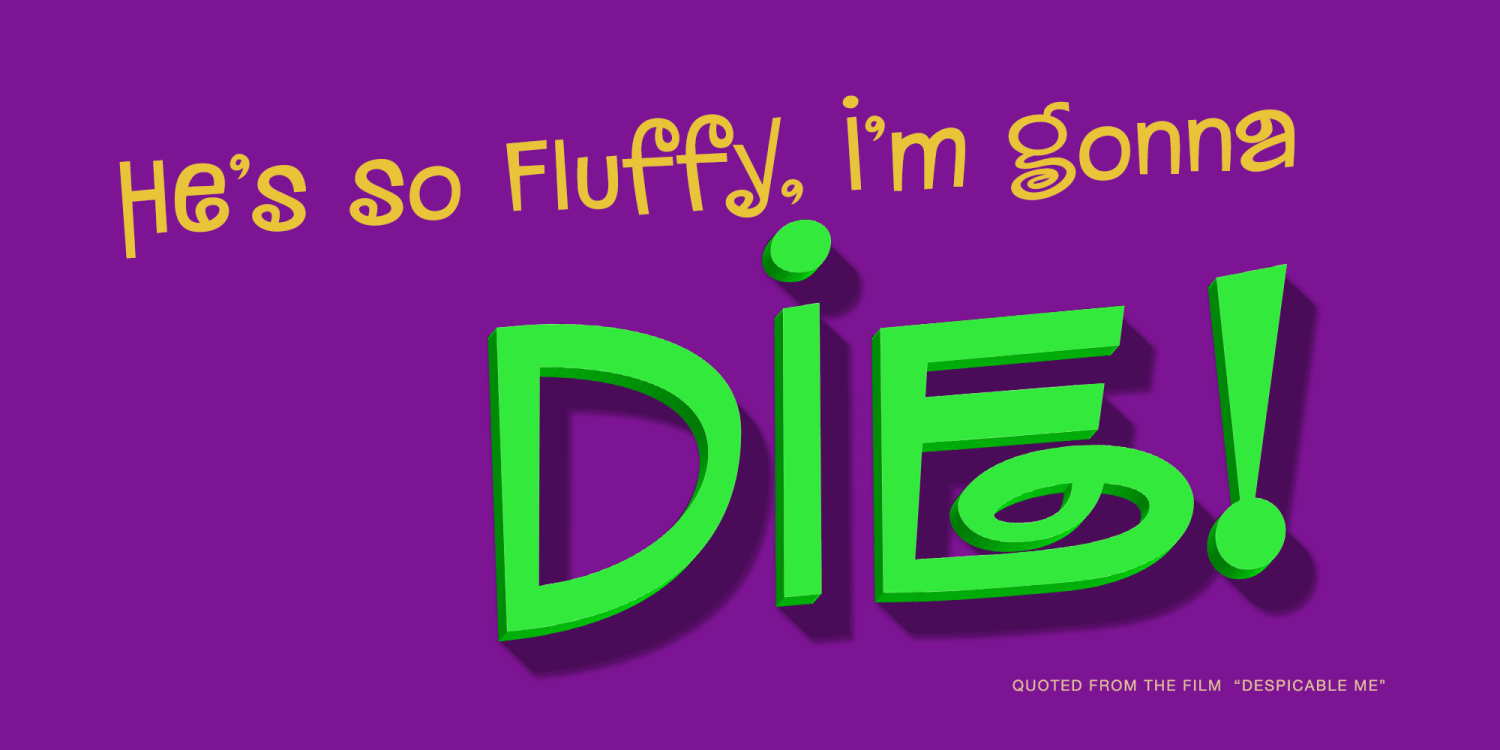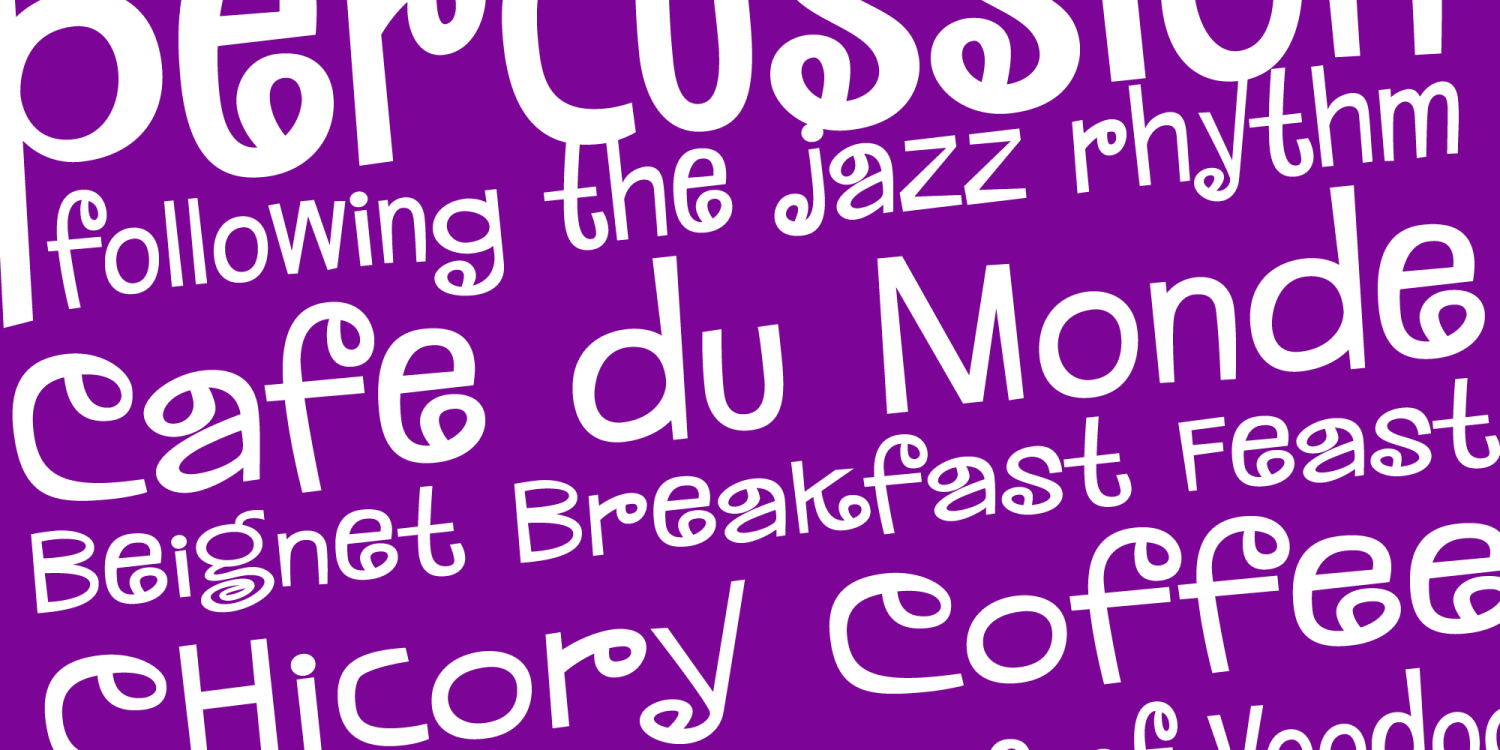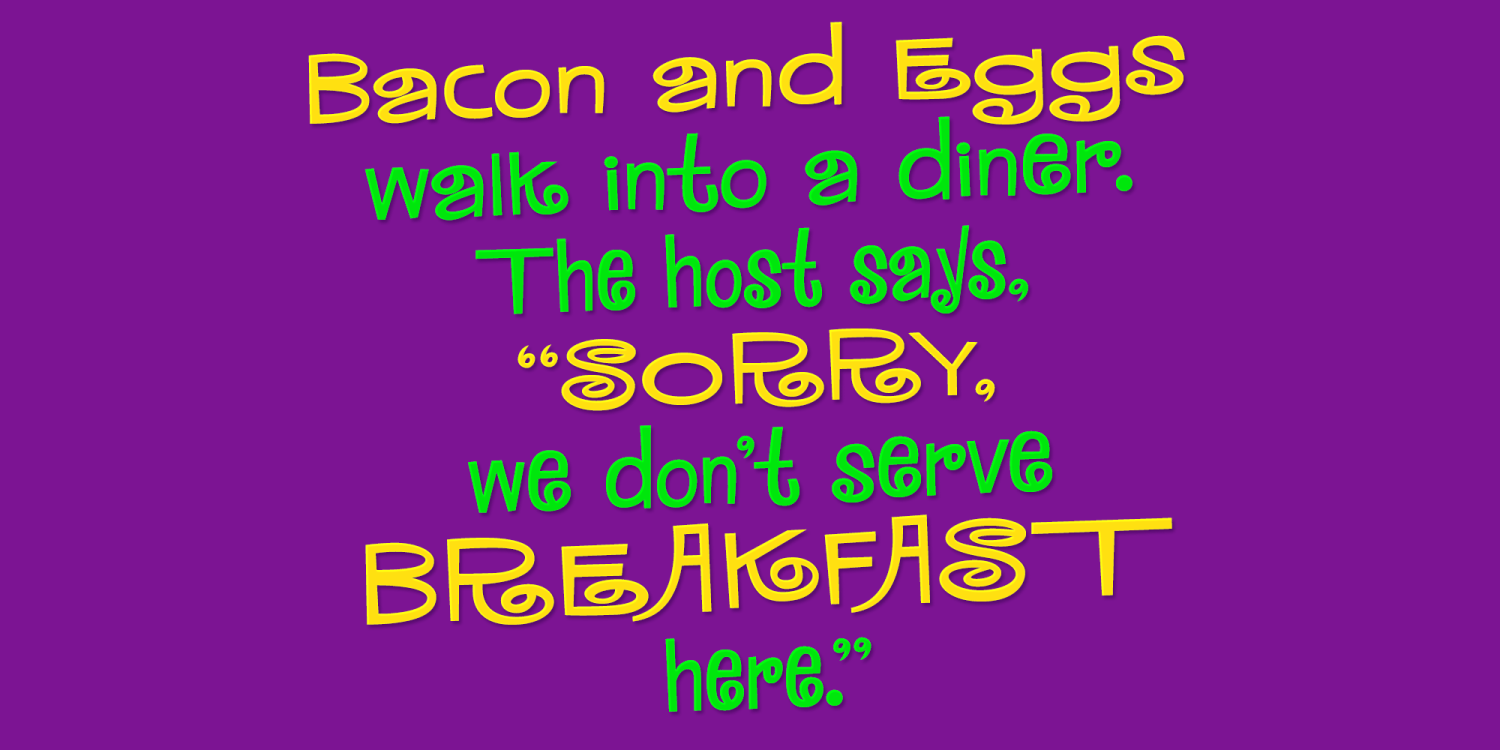
MardiKrewe
Font Family by Pink Broccoli
Wild and carefree, the MardiKrewe Family is filled with spunk and personality.
MardiKrewe started as a digitization of a film typeface called MardiGras by Lettergraphics. From there, this lively typeface was fleshed out to a full character set and expanded to a family of 5 widths: Extra Narrow, Regular, Wide, and Extra Wide to fit a variety of funktastic needs.